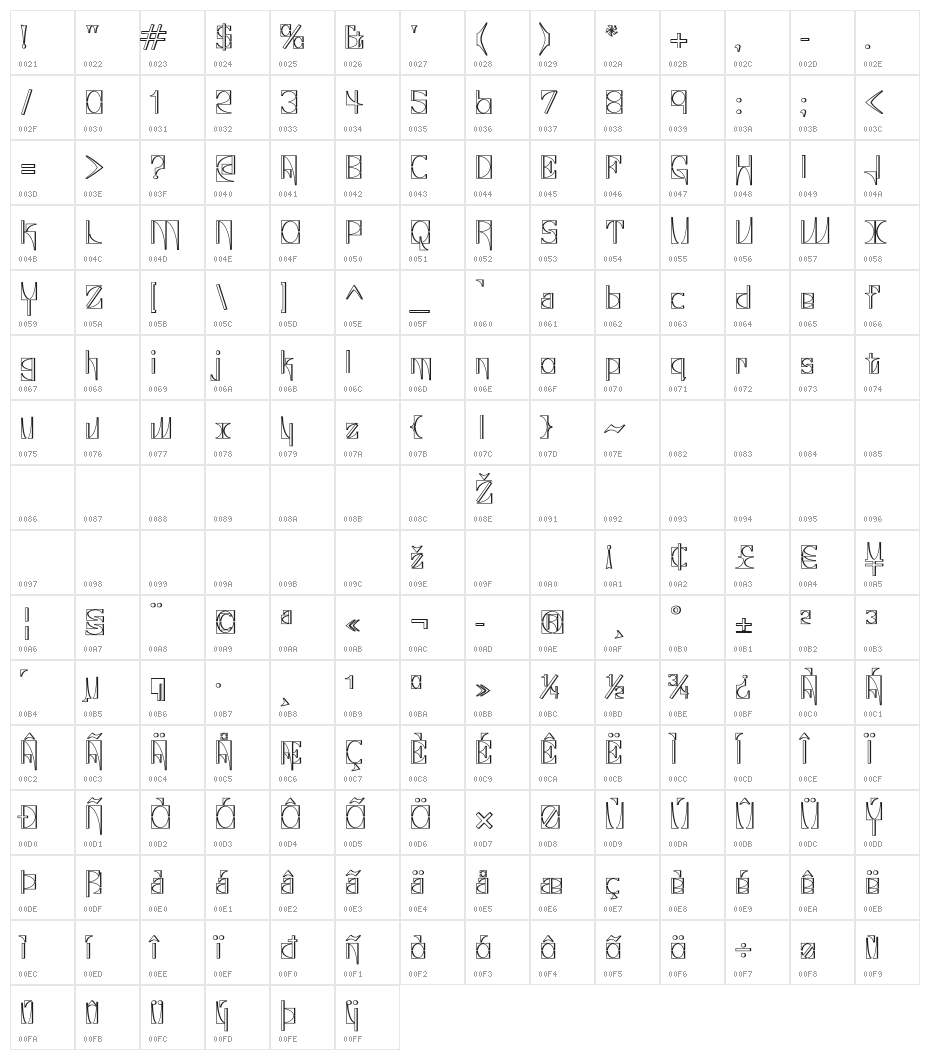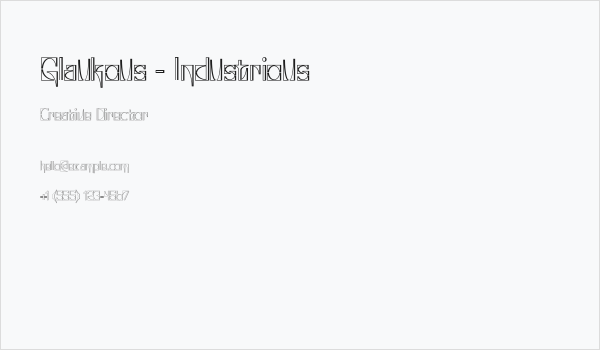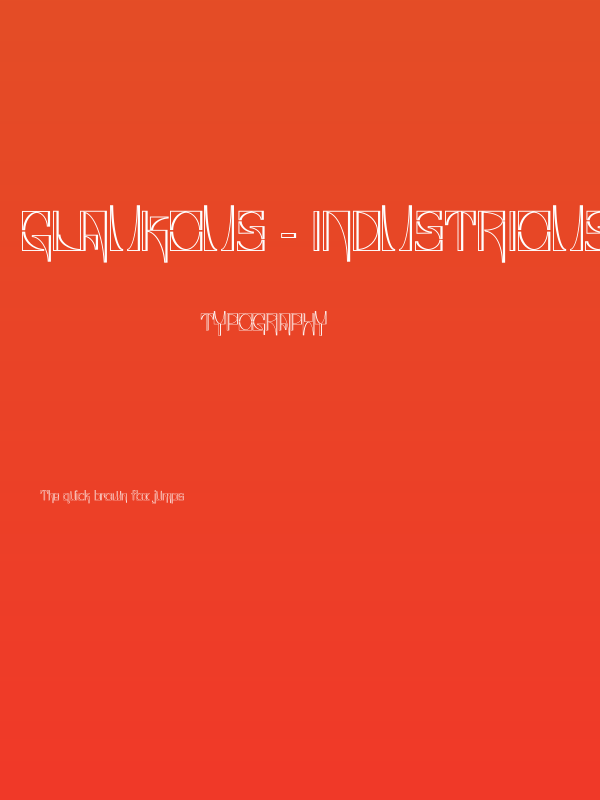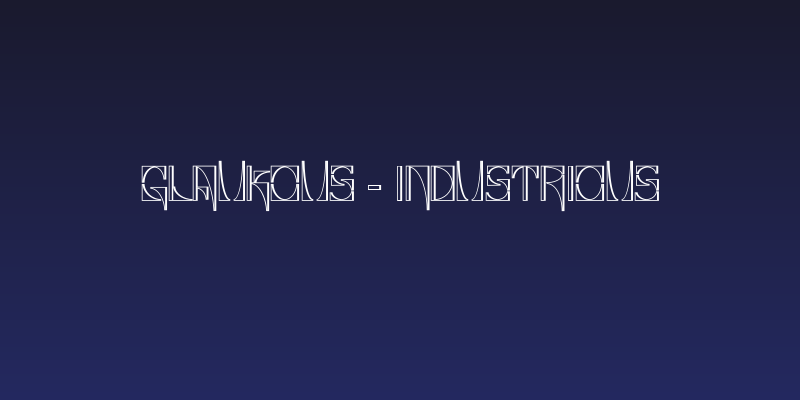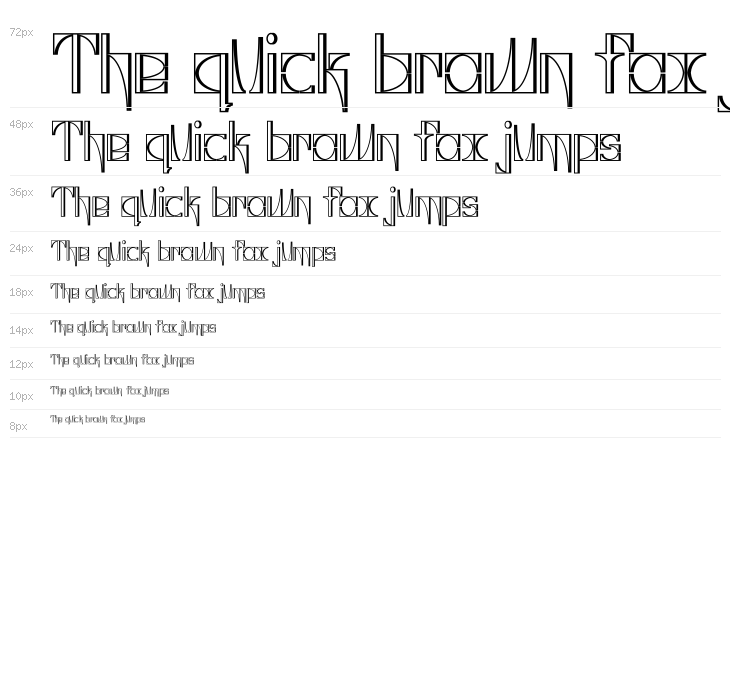
Glaukous - Industrious Font
Glaukous - Industrious Description
This font features a highly geometric and structured design, characterized by its angular and linear elements. Each character is crafted with precision, incorporating sharp edges and a distinct architectural feel. The uppercase letters are particularly striking, with a bold presence that commands attention. The lowercase letters maintain the same geometric integrity, offering a cohesive look across the typeface. Numbers and special characters are designed with the same attention to detail, ensuring consistency throughout. This font is ideal for projects that require a modern and industrial aesthetic, making it suitable for branding, posters, and editorial design.
| Proposed Projects | Ideal for branding, posters, editorial design, and any project requiring a modern, industrial look. |